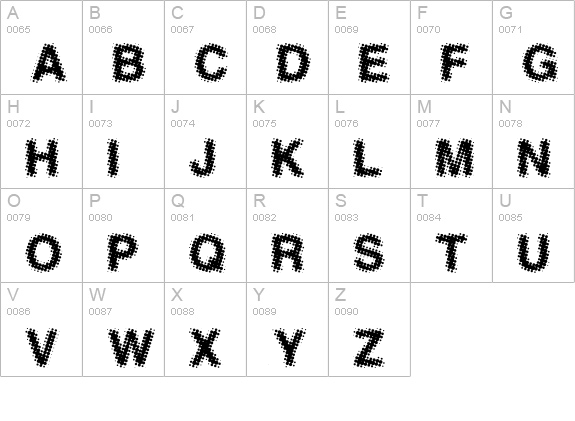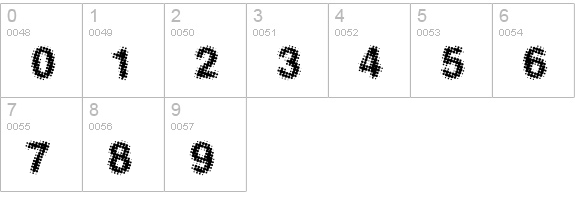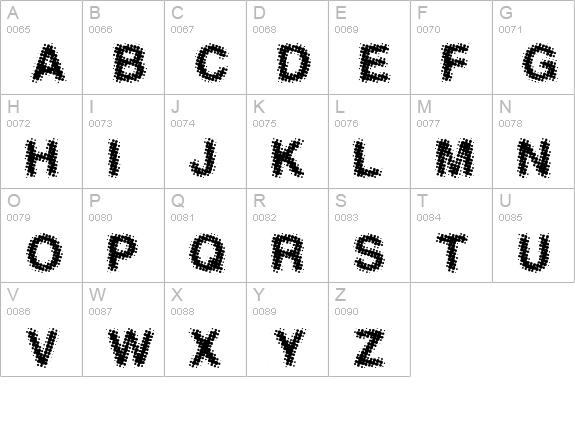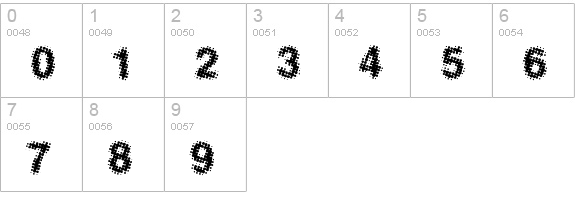
AntFarm GoneCamping Font Details
Introducing AntFarm GoneCamping font - a whimsical and playful typeface inspired by the great outdoors and the charm of camping adventures. This font features quirky characters with a hand-drawn feel that adds a touch of fun to any design project. Whether you're creating posters, greeting cards, or social media graphics, AntFarm GoneCamping font is sure to bring a sense of warmth and nostalgia to your work. And the best part? AntFarm GoneCamping font is available for free download at FontsMarket.com! Bring the spirit of the great outdoors to your designs with this charming and versatile font today.